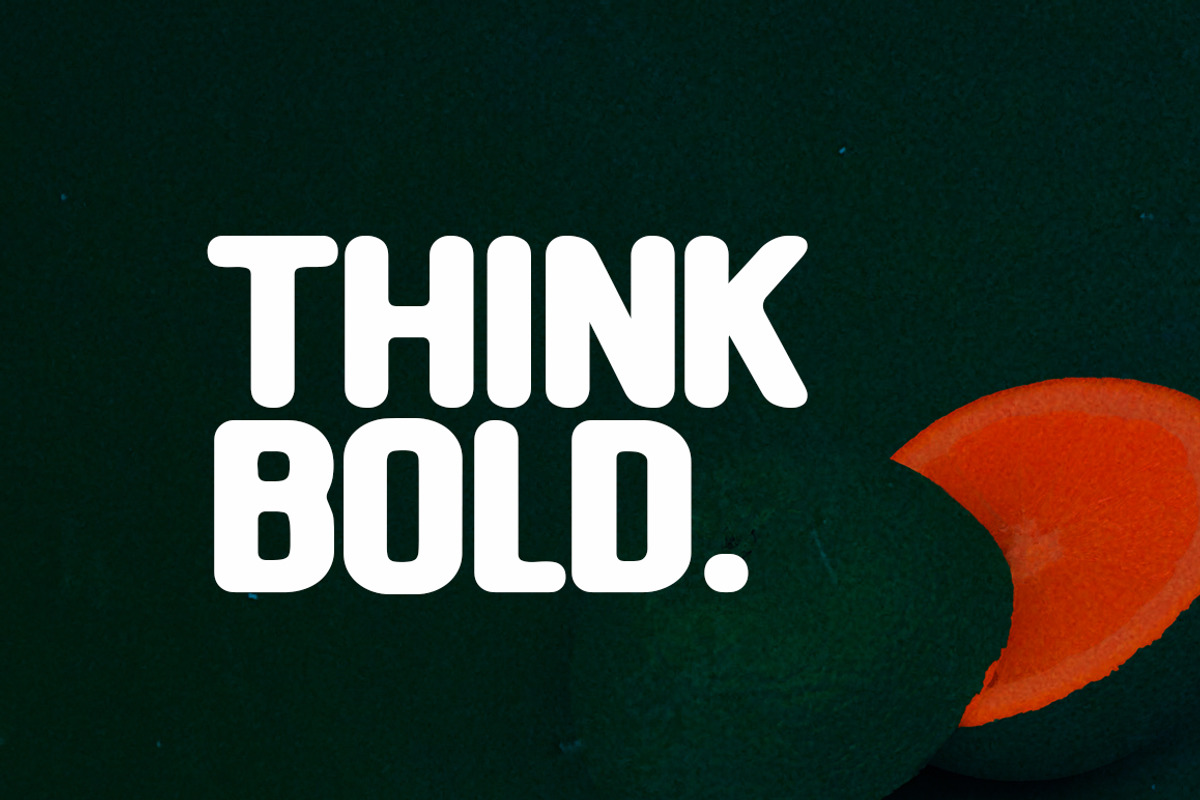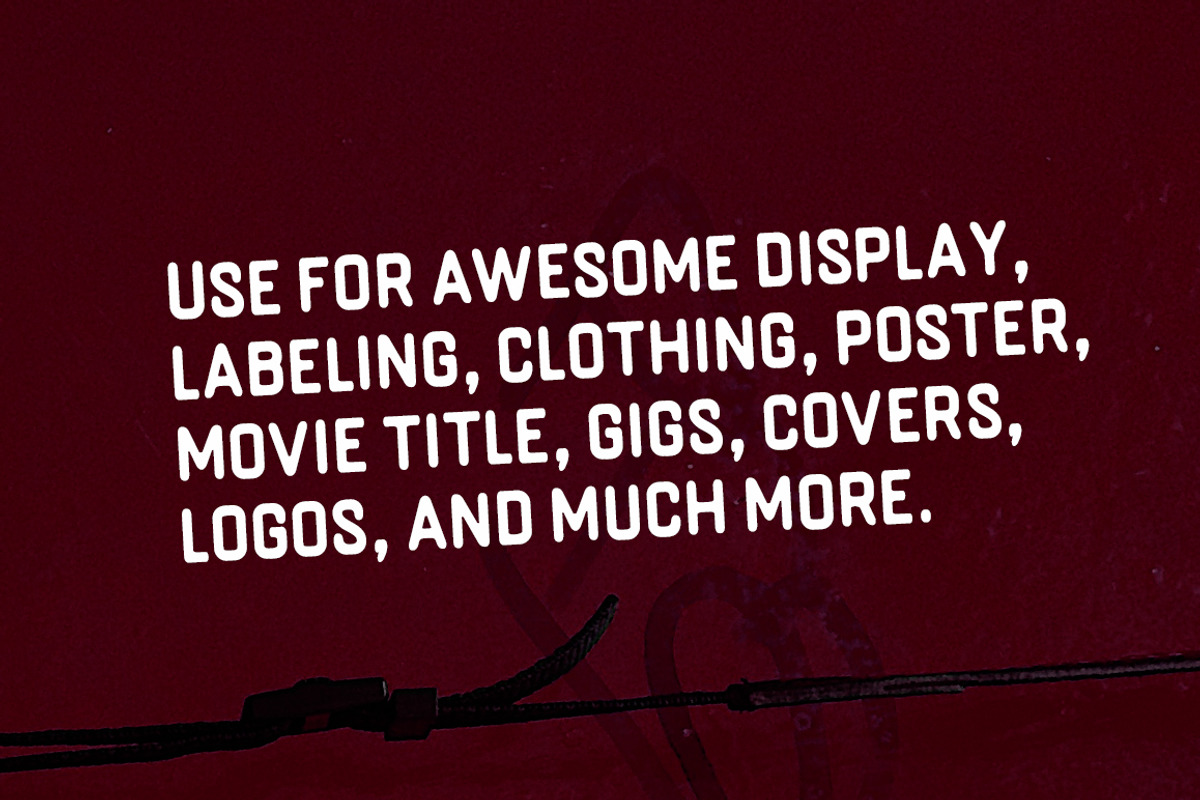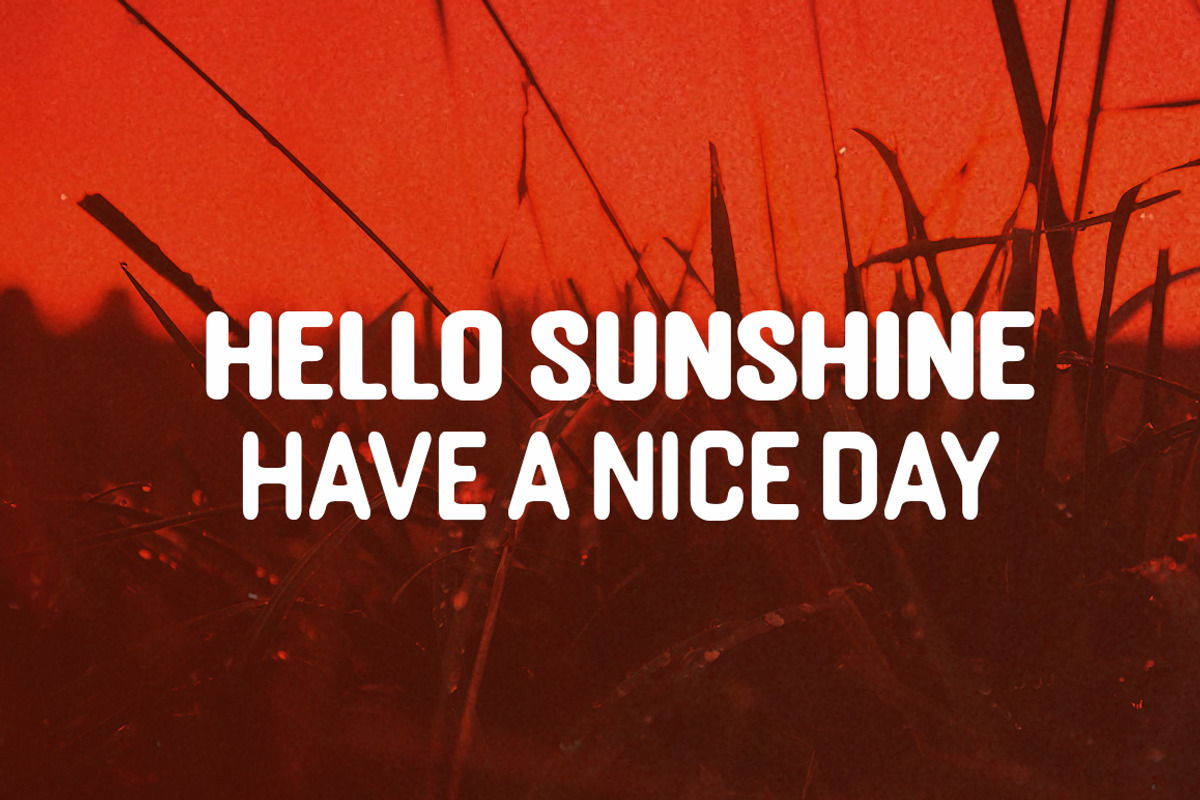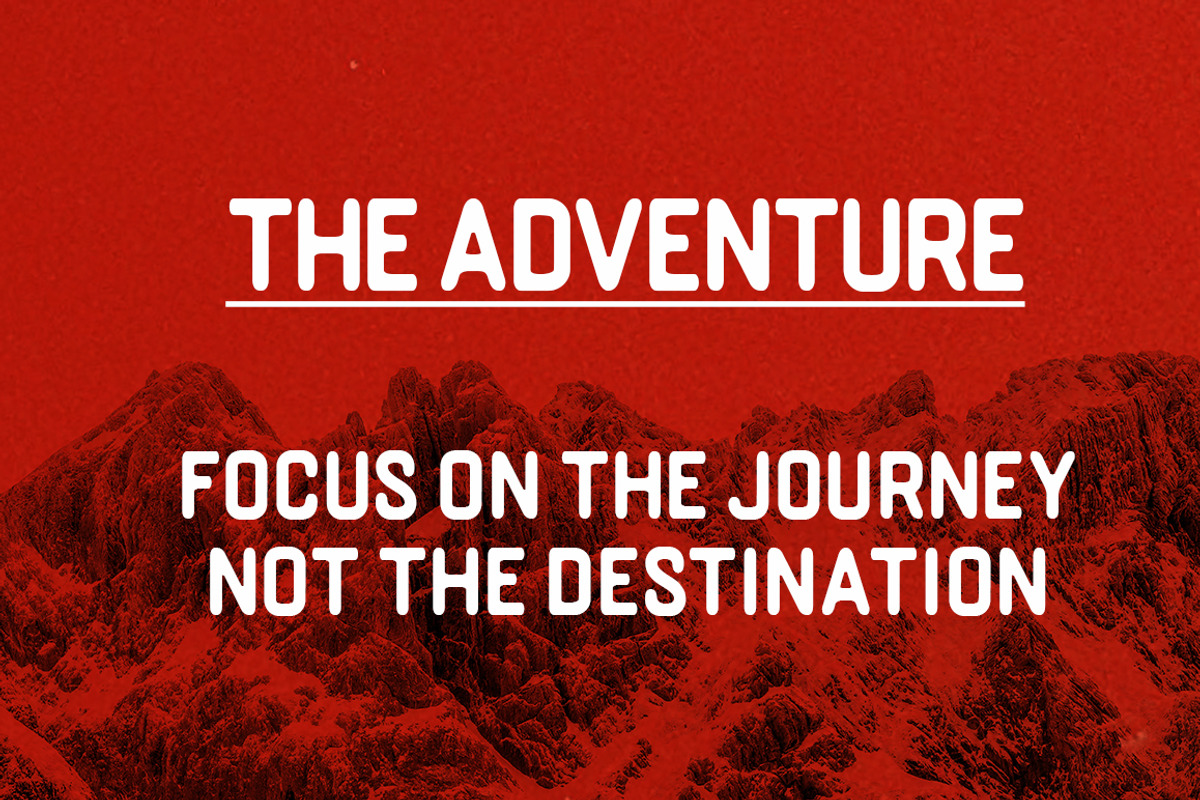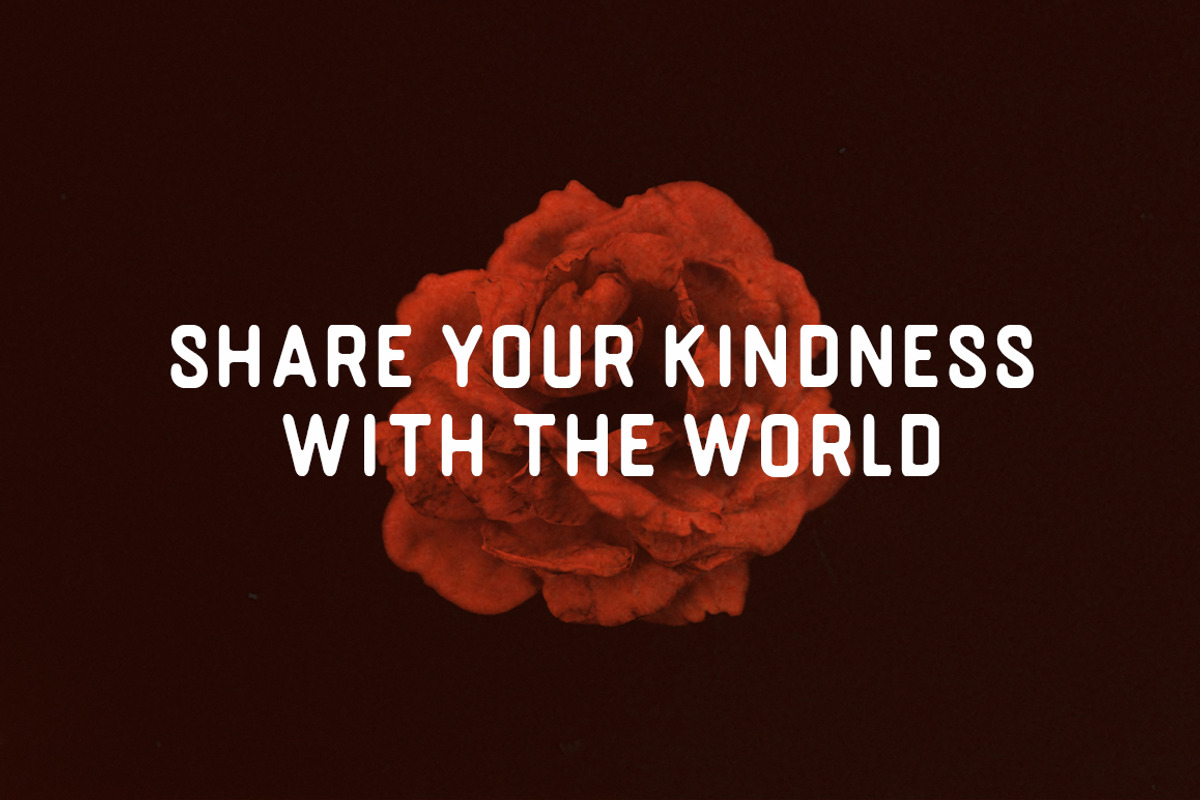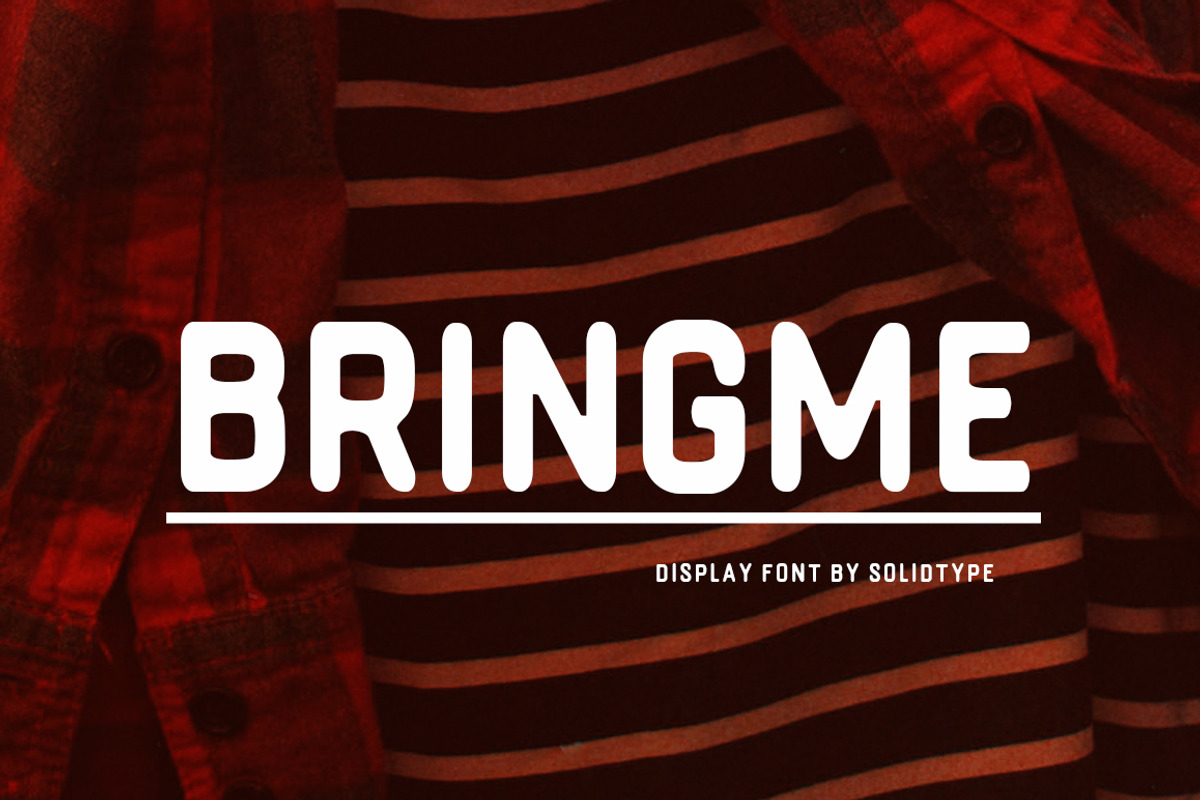
Bringme Display Font
Bringme is a strong typeface display with rounded edges. Its weight is superior in posters, social media, headlines, titles, large format print.
- Regular & Bold
- Uppercases
- Multi Language Support
- Kerning